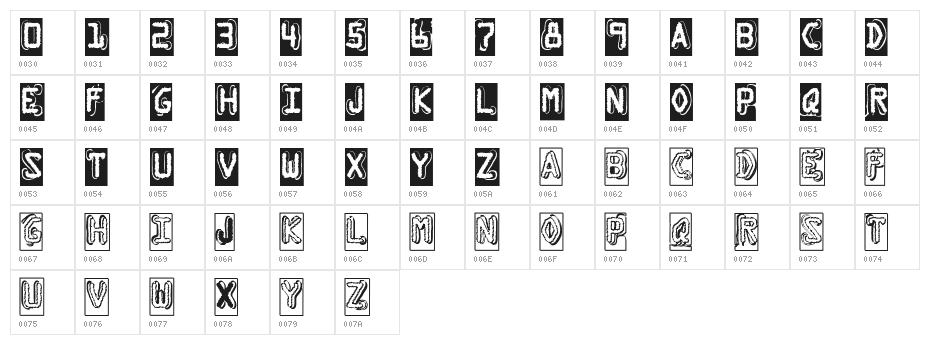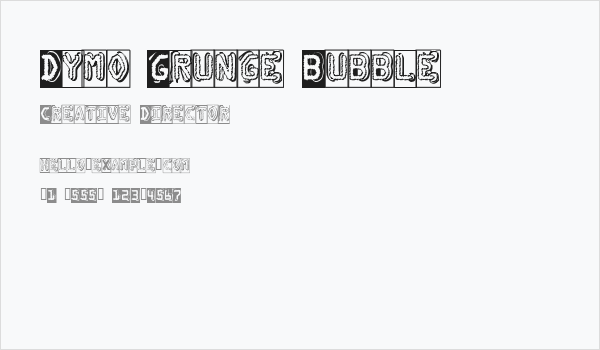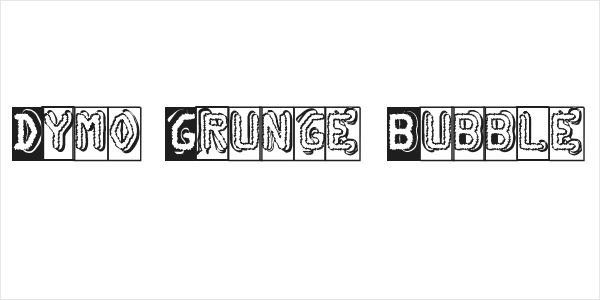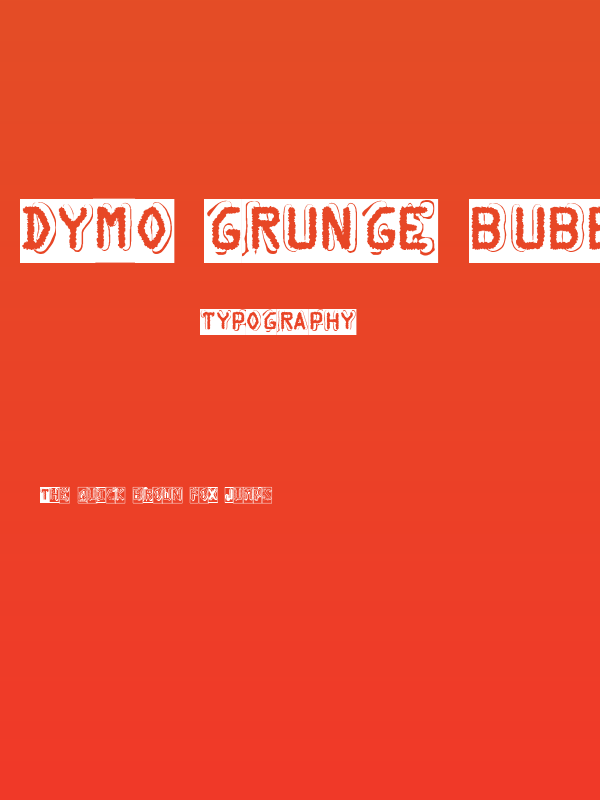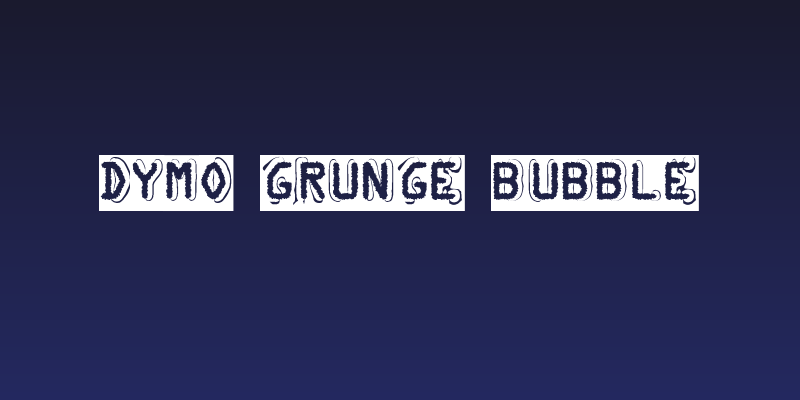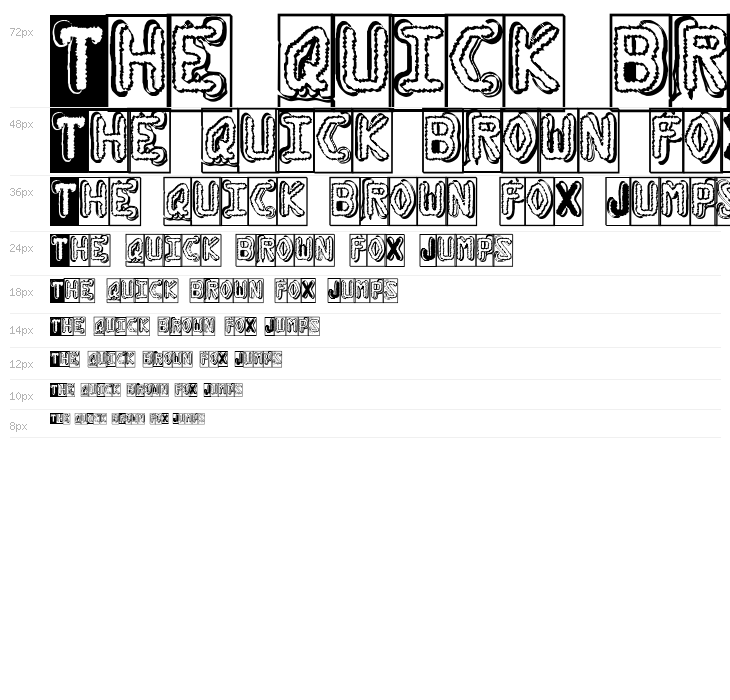
Dymo Grunge Bubble Font
Dymo Grunge Bubble Description
This font features a bold and grungy style with a bubble-like texture that gives it a unique, distressed appearance. The letters are outlined with a rough, uneven edge, creating a sense of movement and energy. The uppercase and lowercase characters maintain a consistent design, with the uppercase letters being slightly larger and more pronounced. Numbers and special characters follow the same stylistic approach, ensuring a cohesive look across all glyphs. The font's playful yet rugged aesthetic makes it suitable for projects that require a touch of edginess and creativity.
| Overall Style | Grunge, Playful |
| Proposed Projects | Ideal for album covers, posters, streetwear branding, and creative digital artwork. |